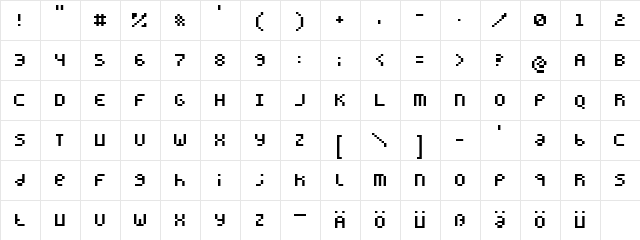
supercollider _small
Design Context for supercollider Typeface
supercollider offers clean, dependable letterforms without strong stylistic allegiance, making it a practical choice for designers who need flexibility.